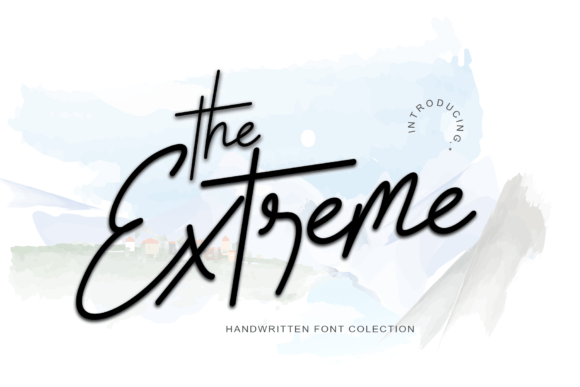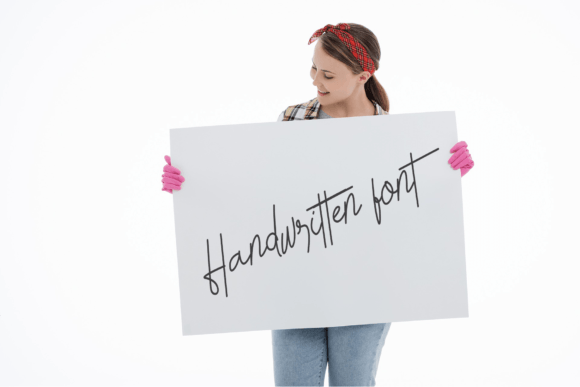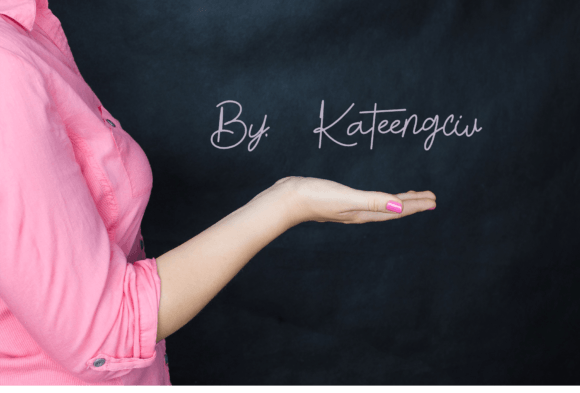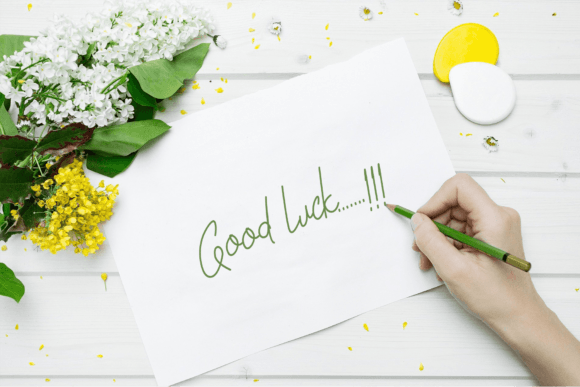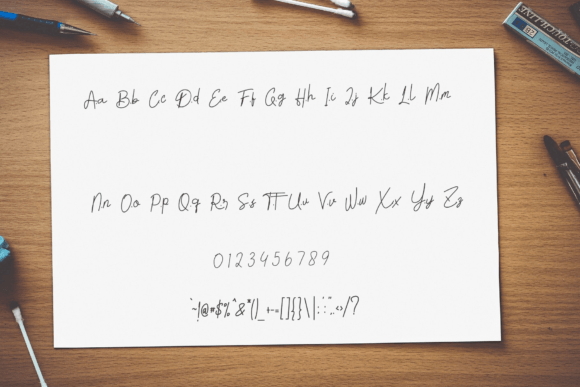
The Extreme Font
About The Extreme Font
“The Extreme” is a font that embodies simplicity and style, offering a perfect blend of elegance and modernity. Its clean and sophisticated handwritten design makes it a versatile choice for a wide range of creative projects. Whether you’re designing logos, establishing branding identities, crafting invitations, working on stationery, creating wedding designs, or developing engaging social media posts, “The Extreme” is a font that effortlessly elevates your designs to a classy and polished level.
What makes “The Extreme” exceptional is its ability to convey a sense of sophistication and modernity while retaining a timeless simplicity. The font’s clean lines and stylish letterforms give it a sleek and contemporary look, making it suitable for both formal and informal contexts. Its versatility enables it to adapt to various design themes, ensuring a cohesive and visually appealing outcome for your projects.
Whether you’re aiming for a minimalist logo design or creating elegant wedding invitations, “The Extreme” adds a touch of refinement to your creations. Its simple yet stylish appearance enhances the overall visual impact of your designs, making them appear professional and well-crafted. The font’s versatility allows you to experiment with different layouts and color schemes, enabling you to create visually stunning and cohesive branding materials.
Incorporating “The Extreme” into your design projects not only ensures a classy and elegant aesthetic but also provides a modern edge that resonates with contemporary audiences. Its clean and stylish look makes it particularly suitable for digital media and online presence, allowing your social media posts and online content to exude professionalism and sophistication.
In summary, “The Extreme” is more than just a font; it’s a design asset that adds a touch of class and modernity to your creative endeavors. Its simple yet stylish handwritten appearance makes it a valuable tool for designers, marketers, and creatives looking to create visually appealing and professional-looking designs. Embrace the versatility of “The Extreme” and let it enhance your logos, branding materials, invitations, and social media posts, ensuring your projects have a lasting impact and a contemporary allure that resonates with your audience.